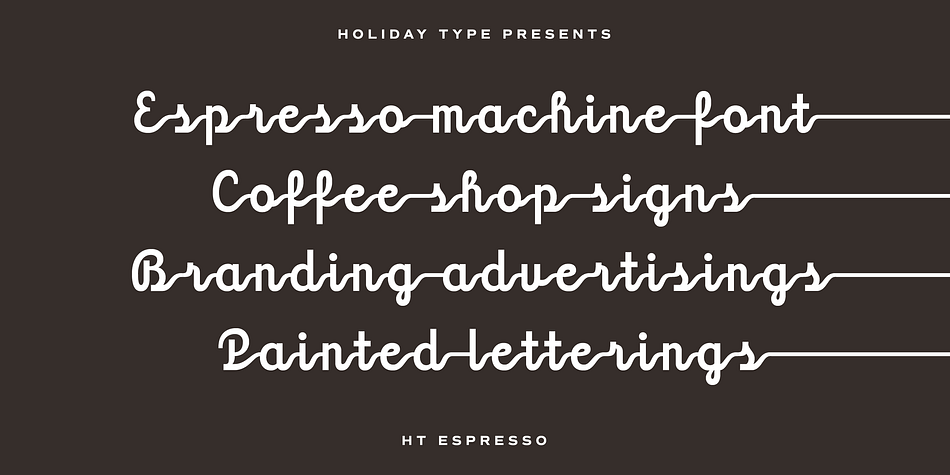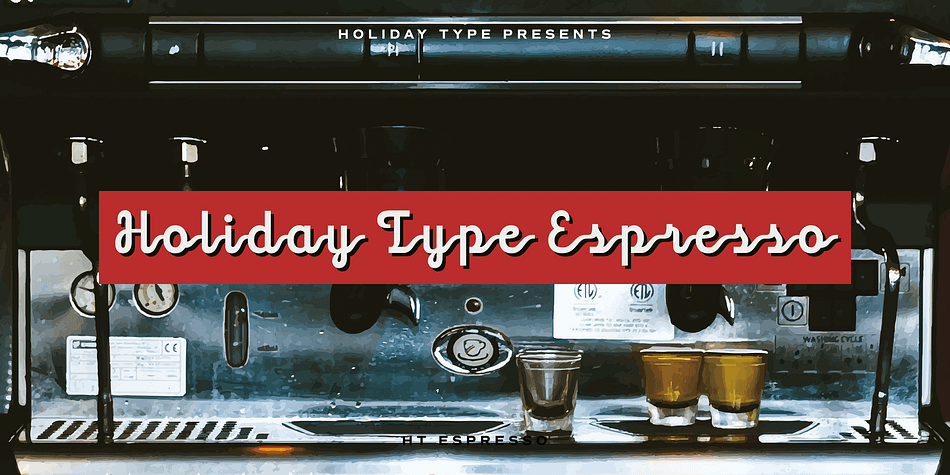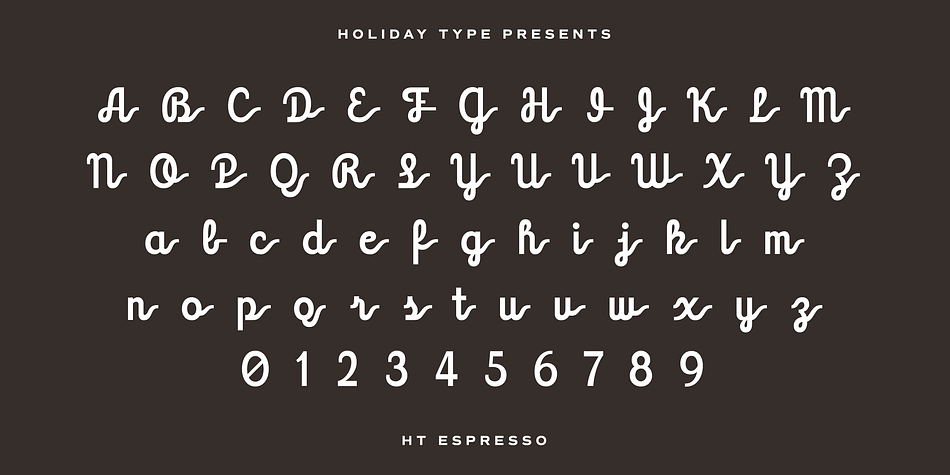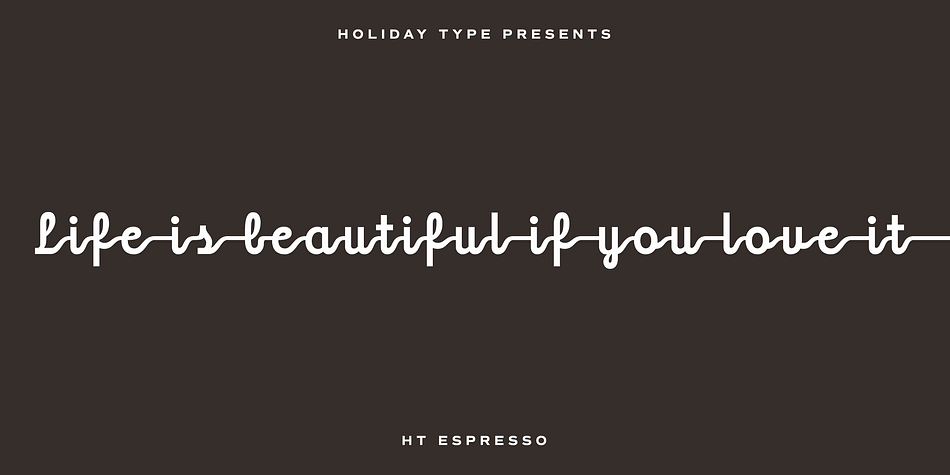
HT Espresso is a script font published by Dharma Type.
The biggest feature of HT Espresso is a mixture of straight line and curve.It is like a cup of espresso with a bite-sized piece of chocolate. You can connect all the letters with thin line and It would attract notice.
Holiday Type(HT) Project offers retro hand drawing scripts. Inspired by retro script on shopfront lettering, wall paint advertisements in Italy around 1950s.